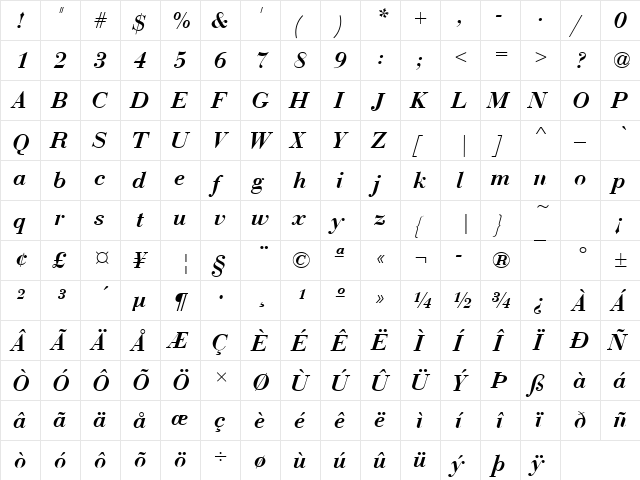
BodoniNo1URWDDemBol Italic
Design Context for BodoniNo1URWDDemBol Typeface
BodoniNo1URWDDemBol offers clean, dependable letterforms without strong stylistic allegiance, making it a practical choice for designers who need flexibility. Its italic angle brings a sense of urgency and motion to the letterforms.
Pro Tip: Try BodoniNo1URWDDemBol for annotation and caption copy alongside an upright companion — the contrast in angle creates a dynamic but ordered typographic system.